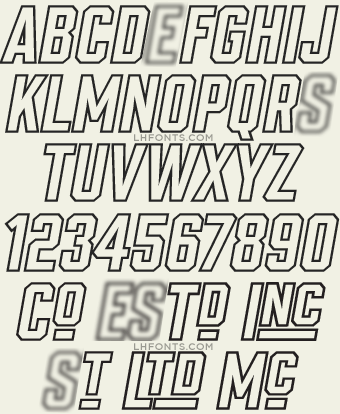
Though similar fonts abound, you'll find LHF Supply Co. to be vastly better drawn and balanced. You receive 8 fonts in this set: Regular, Outline, Slant, Slant Outline, Slim, Slim Outline, Slim Slant, Slim Slant Outline.